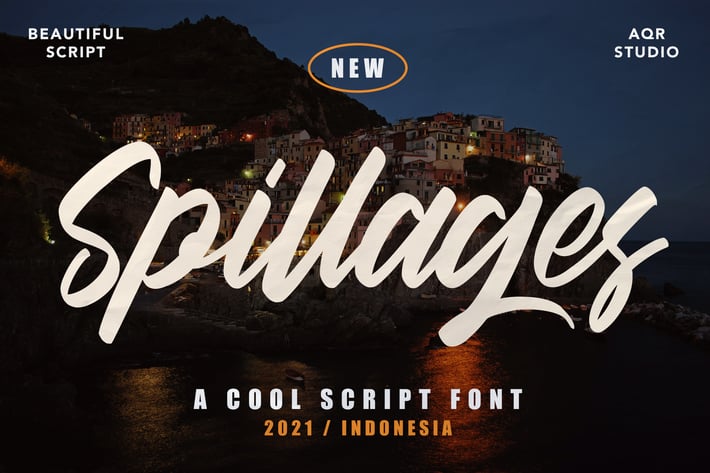
Spillages - Cool Script Font
Spillages - Cool Script Font contains a lowercase, uppercase, symbol, and also supports multi-language. There’s a lot of ligature in this font. Spillages - Cool Script Font also comes with ligatures, stylistic alternates and many more.
this font suitable for fashion, branding, catalog and other design that you want.